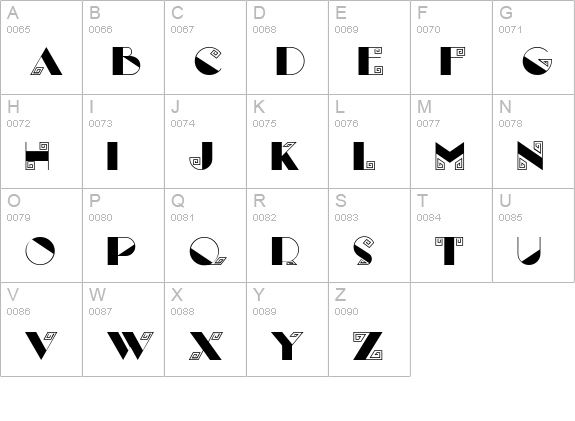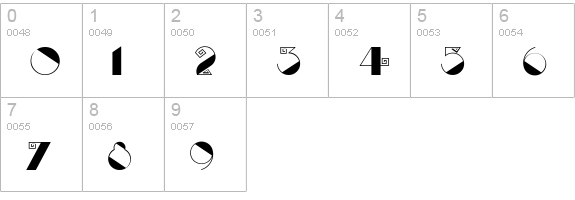
Introducing Labyrinth font, a mesmerizing and enchanting typeface that will transport you into a world of intricate design and captivating letterforms. Designed with utmost precision and attention to detail, Labyrinth font is a true work of art. With its intricate curves and delicate lines, this font brings a touch of mystery and elegance to any project. Whether you're designing a logo, creating a poster, or crafting a unique brand identity, Labyrinth font is sure to make a lasting impression. What sets Labyrinth font apart is not just its stunning aesthetics, but also its versatility. It seamlessly adapts to various design styles, from modern and minimalistic to vintage and ornate. The possibilities are endless with this font, allowing you to unleash your creativity and bring your vision to life. The best part? Labyrinth font is available for free! That's right, you can freely download this mesmerizing typeface at FontsMarket.com. We believe in making high-quality fonts accessible to everyone, and Labyrinth font is no exception. So, why wait? Dive into the labyrinth of creativity and let Labyrinth font guide you towards extraordinary design possibilities. Download this captivating typeface today and watch your projects come to life in ways you never thought possible.